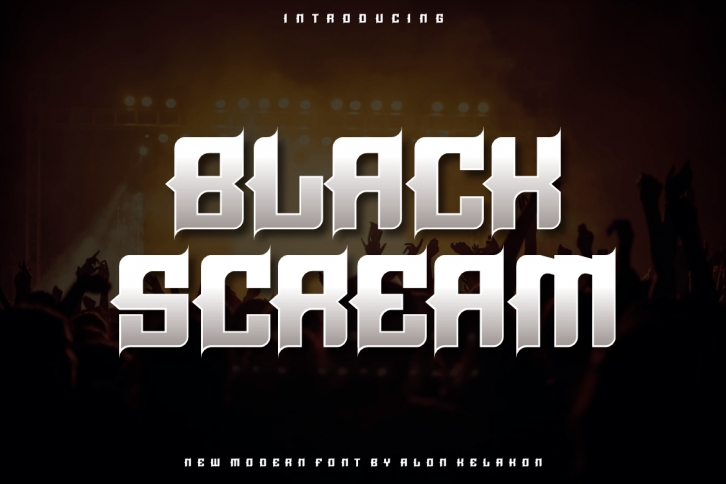
Black Scream is a cool and modern display font. Masterfully designed to become a true favorite, this font has the potential to bring each of your creative ideas to the highest level!